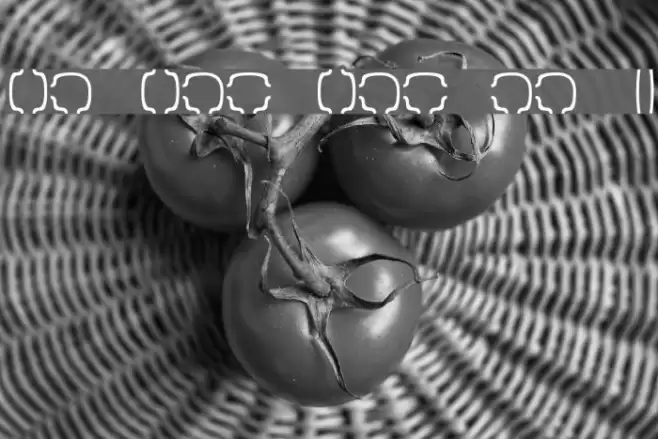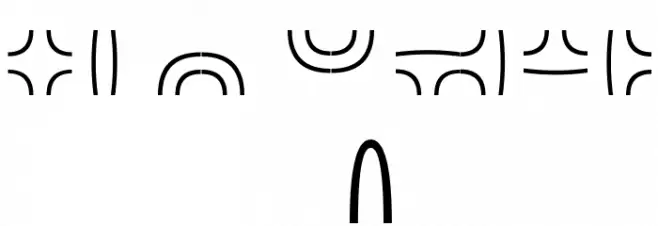
Maze Maker Cavern Level 1F Font
Maze Maker Cavern Level 1F Description
This is not a valid font. The image appears to contain abstract shapes or symbols rather than a complete set of alphanumeric characters and typical punctuation marks. It lacks the necessary elements to be classified as a font suitable for text representation.
The image does not depict a valid font from Uncategorized fonts.